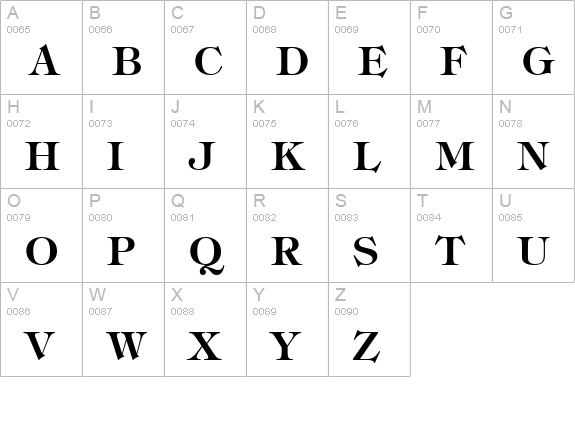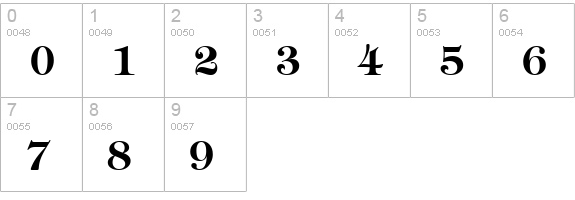
Tiffany Demi BT Font Details
Tiffany Demi BT is a sub-bold, structured variant in the Tiffany typeface family \xE2\x80\x94 well suited to sub-headlines and emphasised passages.
Tiffany Demi BT is a stunning font that effortlessly captures attention with its elegant and sophisticated appearance. This font boasts a unique blend of modernity and classic charm, making it perfect for a wide range of design projects. From invitations and branding materials to product packaging and editorial designs, Tiffany Demi BT adds a touch of refinement and professionalism. With its slightly bold weight, this font exudes confidence and commands attention. The clean and well-defined letterforms ensure legibility, even at smaller sizes, making it versatile for both headlines and body text. The subtle curves and smooth lines of Tiffany Demi BT create a harmonious and balanced aesthetic, adding a touch of grace to any design. One of the best things about Tiffany Demi BT is that it is freely available to download at FontsMarket.com. This means that designers and enthusiasts alike can easily access and use this font without any restrictions. Whether you're working on personal or commercial projects, you can enjoy the beauty and versatility of Tiffany Demi BT without worrying about licensing fees. So, if you're looking for a font that combines modern sophistication with timeless elegance, look no further than Tiffany Demi BT. With its free availability at FontsMarket.com, it's never been easier to elevate your designs and make a lasting impression. Download Tiffany Demi BT today and let your creativity shine.